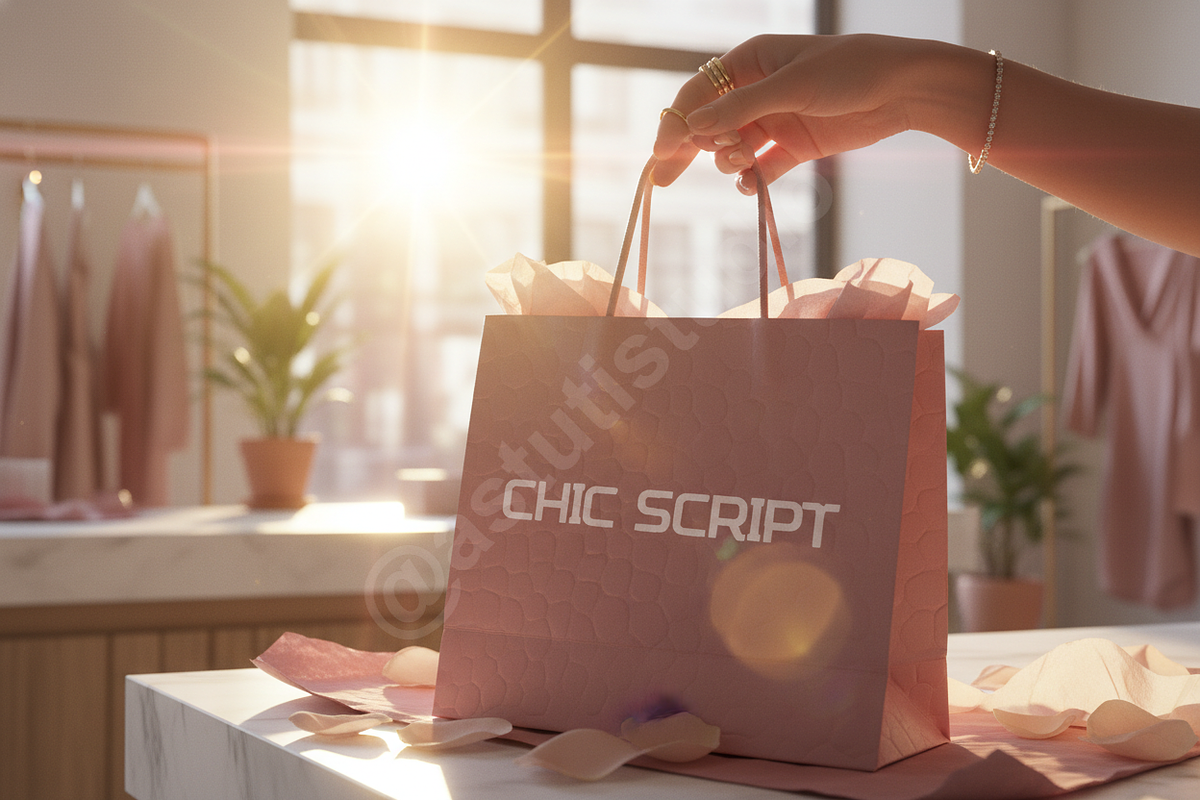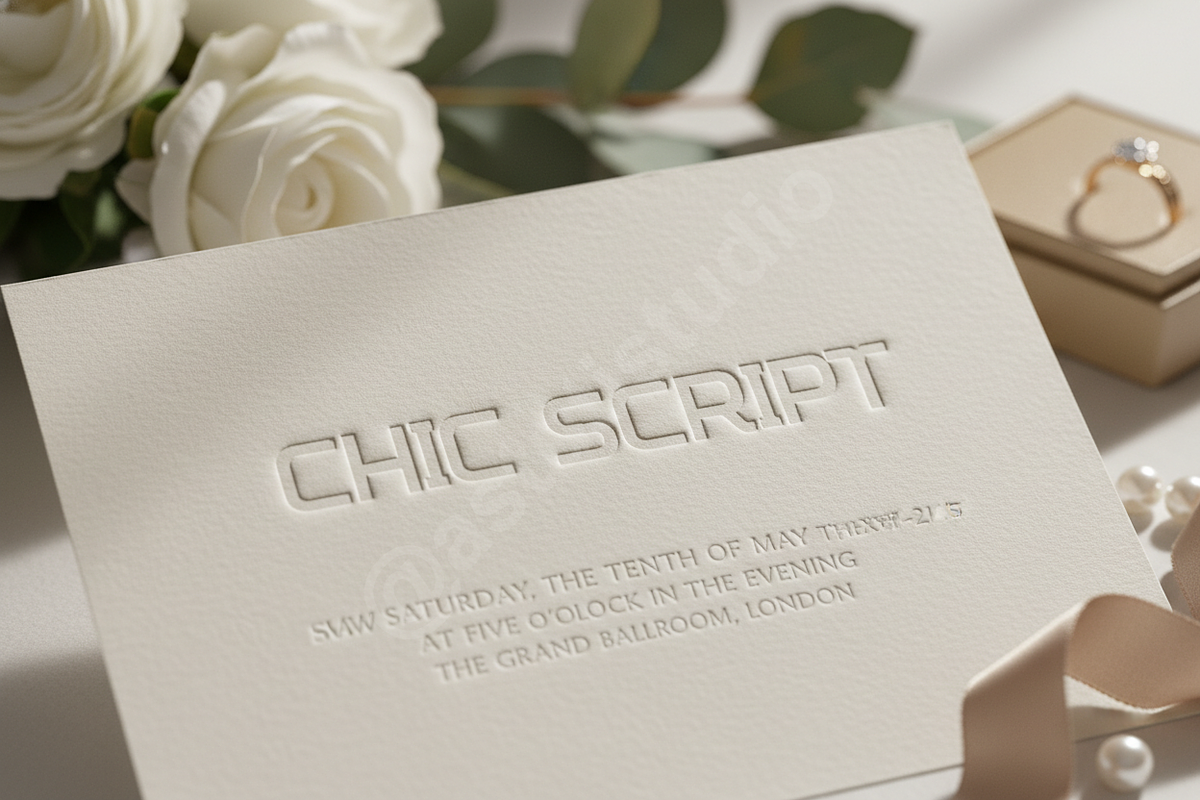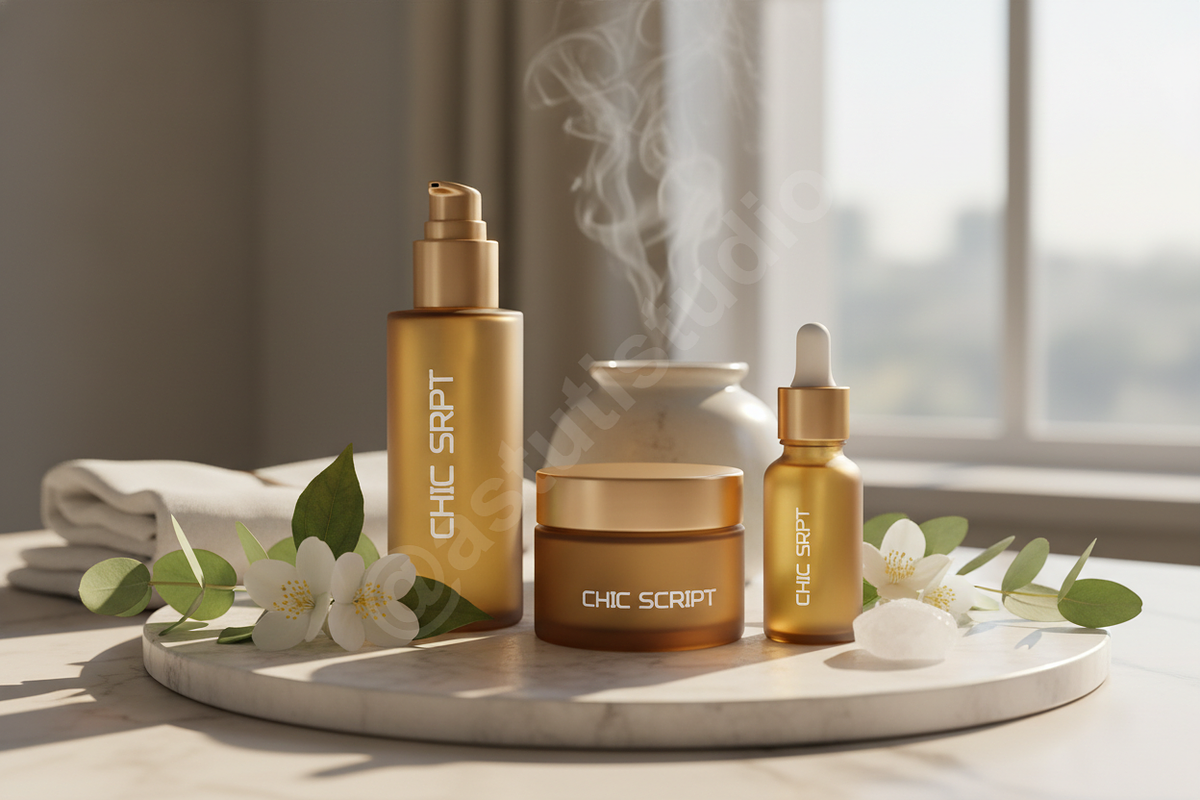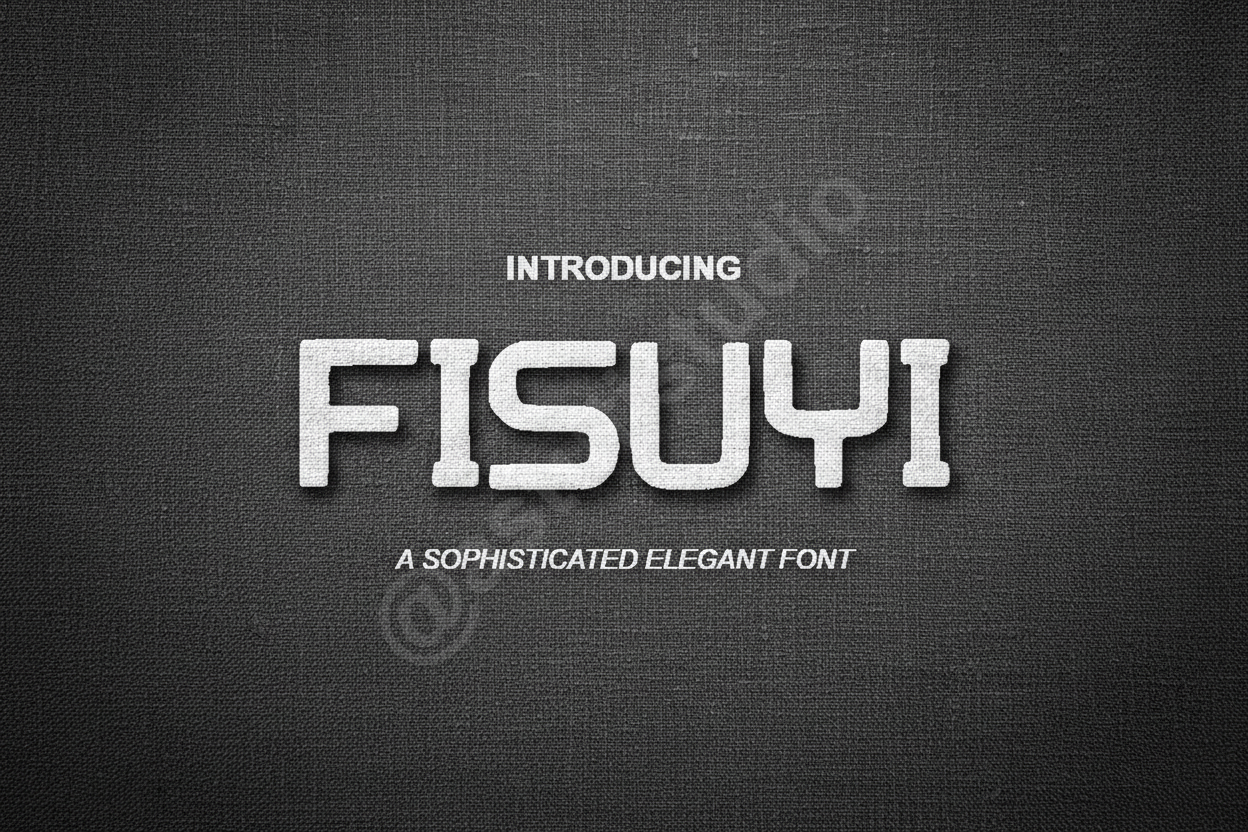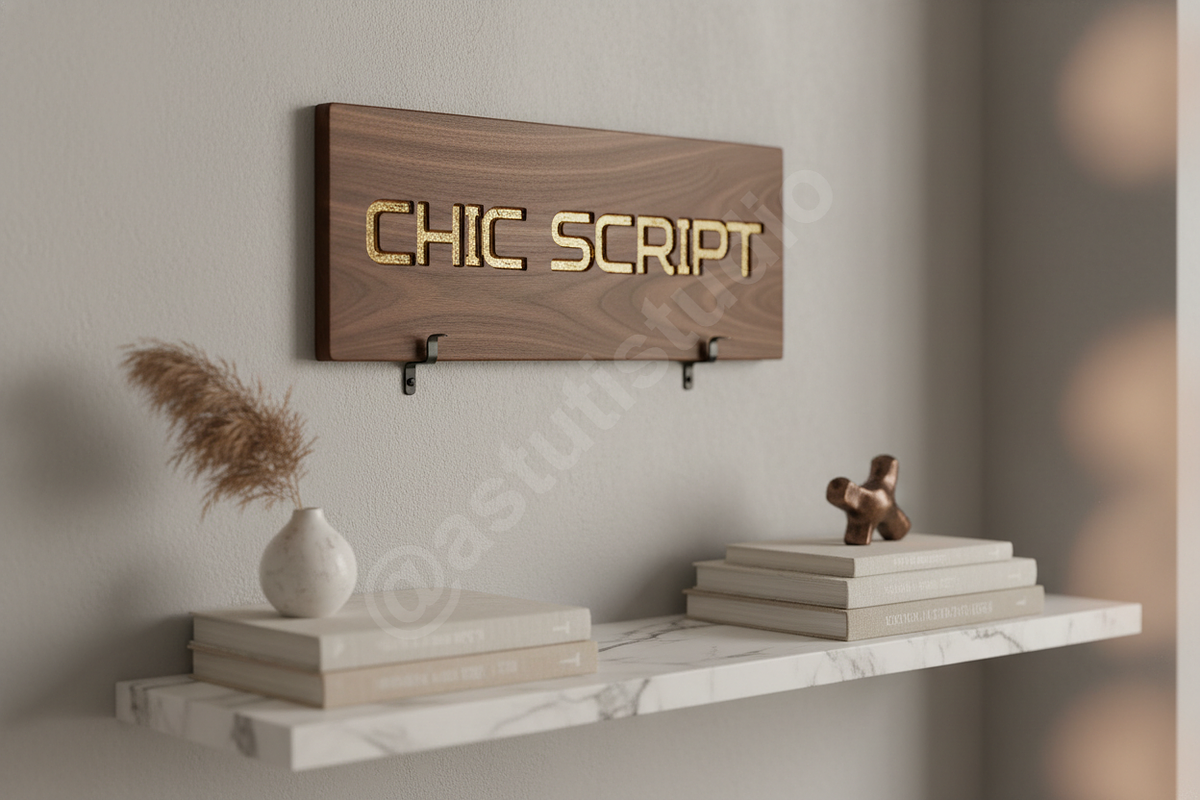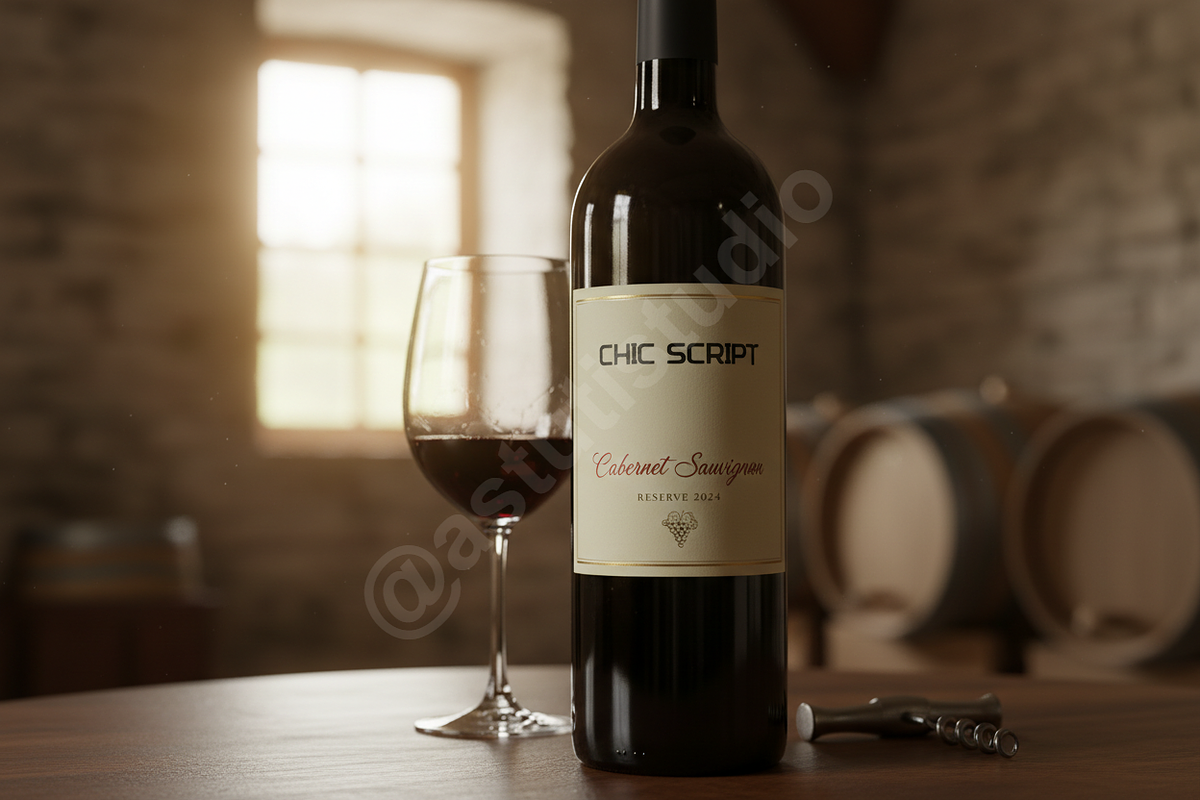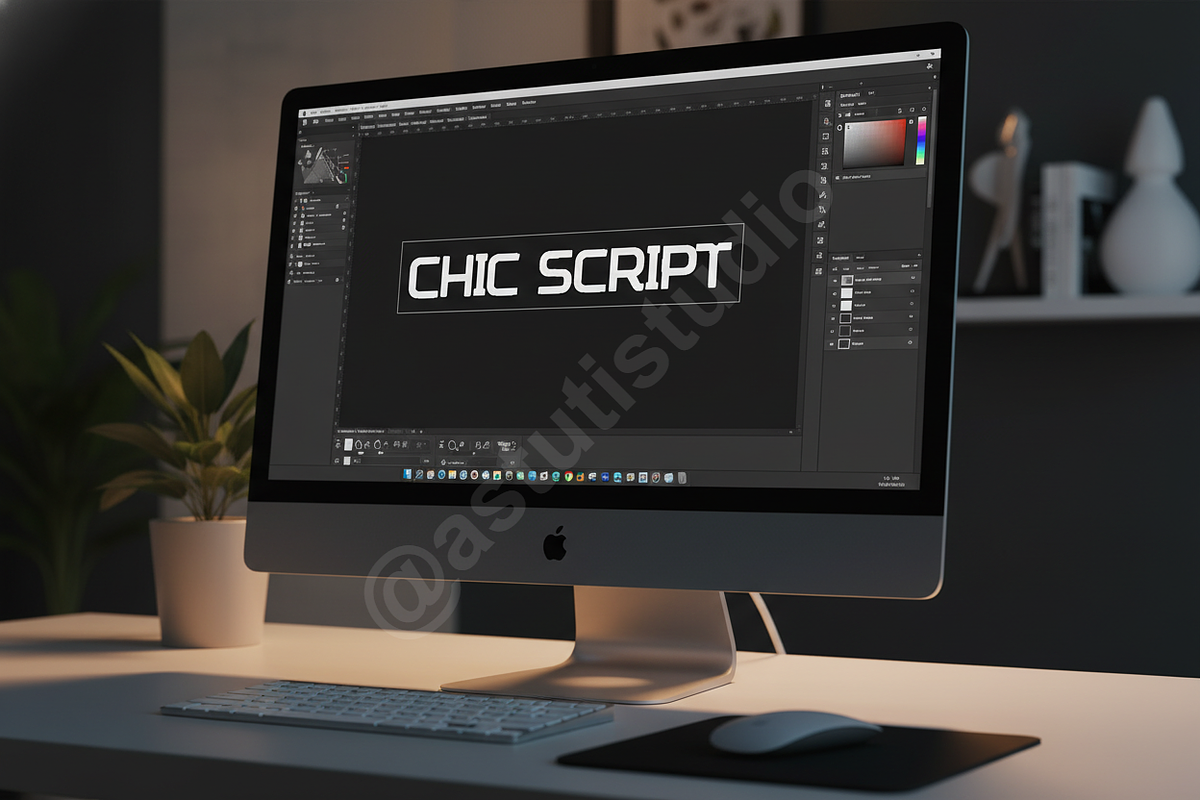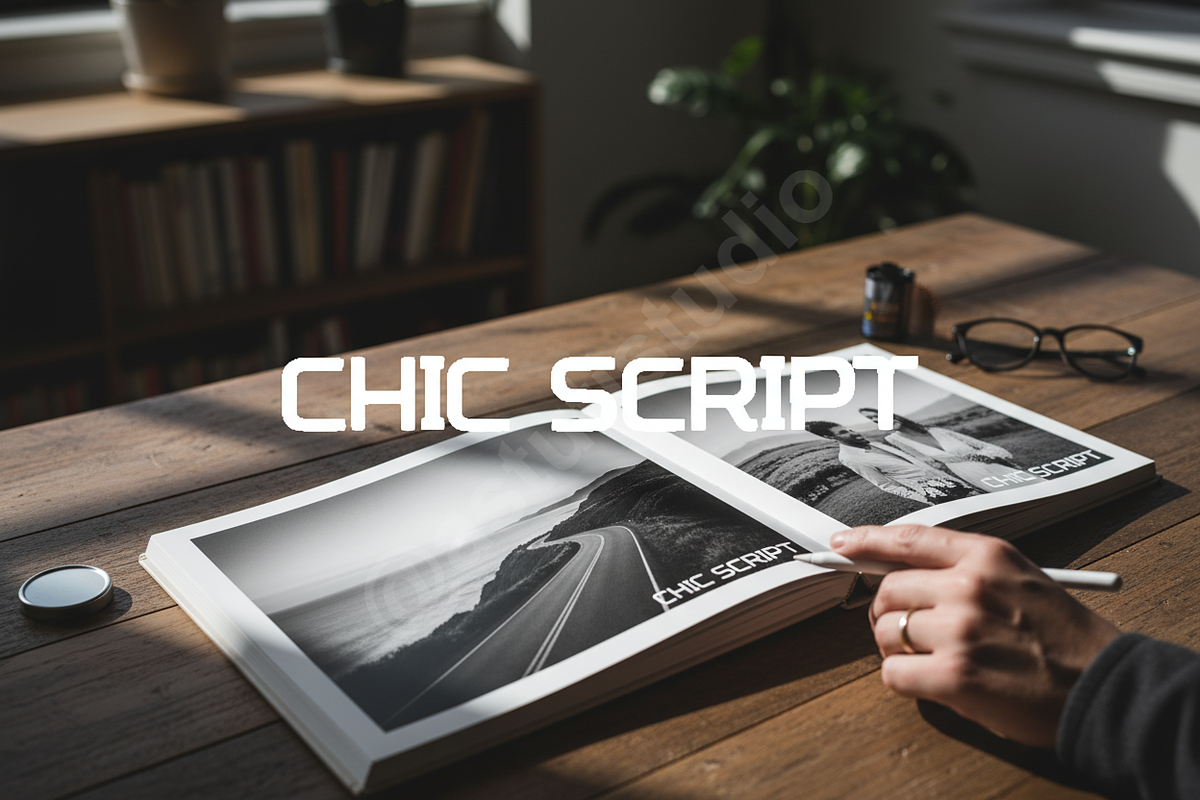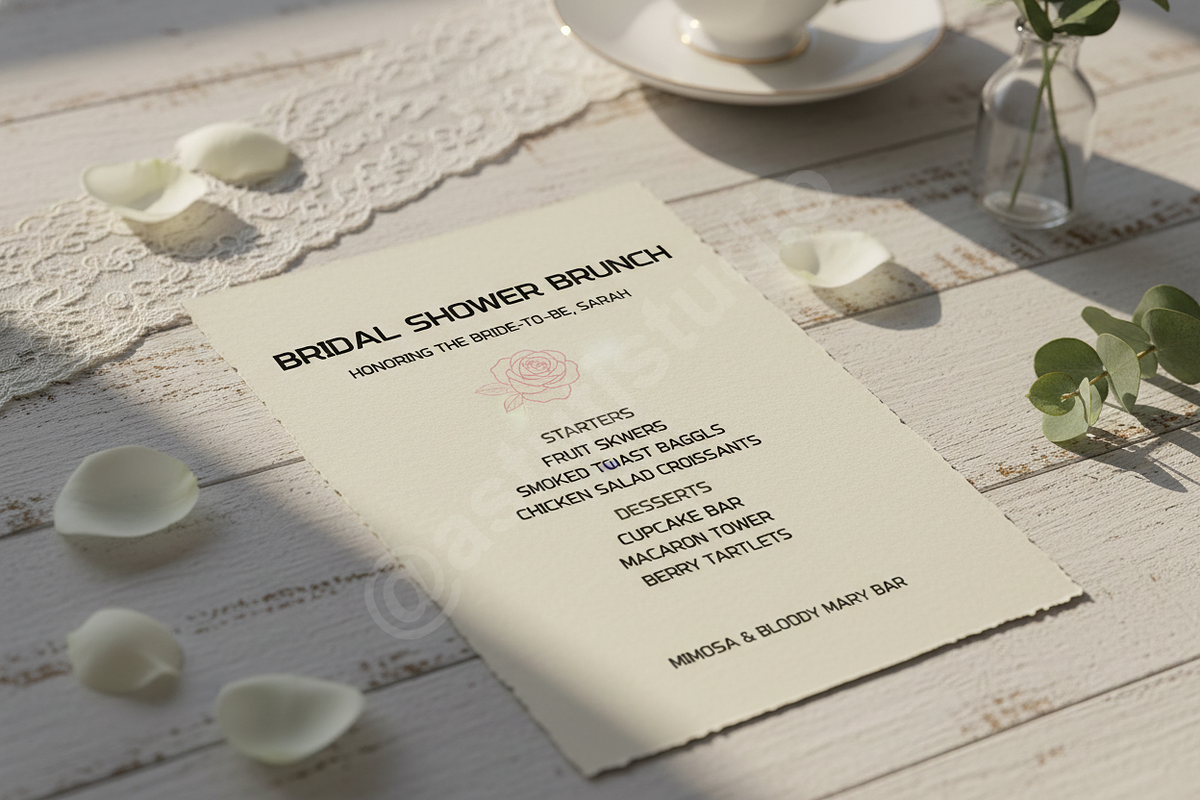
Fisuyi Typeface: Modern Luxury Serif
Introduction
Fisuyi is an exquisite, meticulously crafted serif typeface designed to elevate high-end visual communication. Balancing classic elegance with a sharp, contemporary edge, Fisuyi delivers immediate sophistication, making it the definitive choice for brands seeking timeless luxury, premium editorial presence, and captivating social media graphics.
• Pristine Letterforms: High contrast strokes and refined serifs ensure optimal readability at display sizes. • Extensive Ligatures & Alternates: Includes a curated set of stylistic alternates and unique ligatures to enhance custom logo design and headline impact. • Multilingual Support: Covers standard Latin, Western, Central, and Southeastern European languages. • Optimized for Digital & Print: Perfect rendering across professional print publications, sophisticated social media campaigns, and modern web environments. • Complete Character Set: Includes uppercase, lowercase, numerals, and comprehensive punctuation.